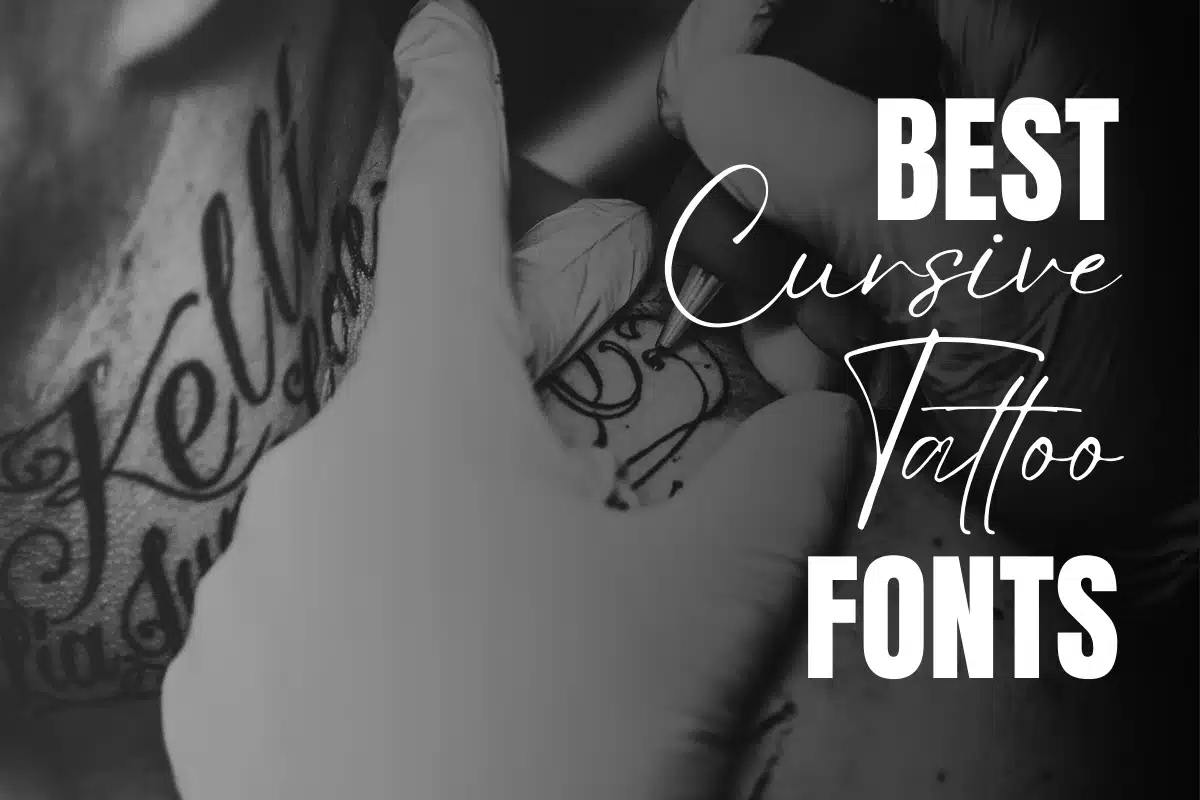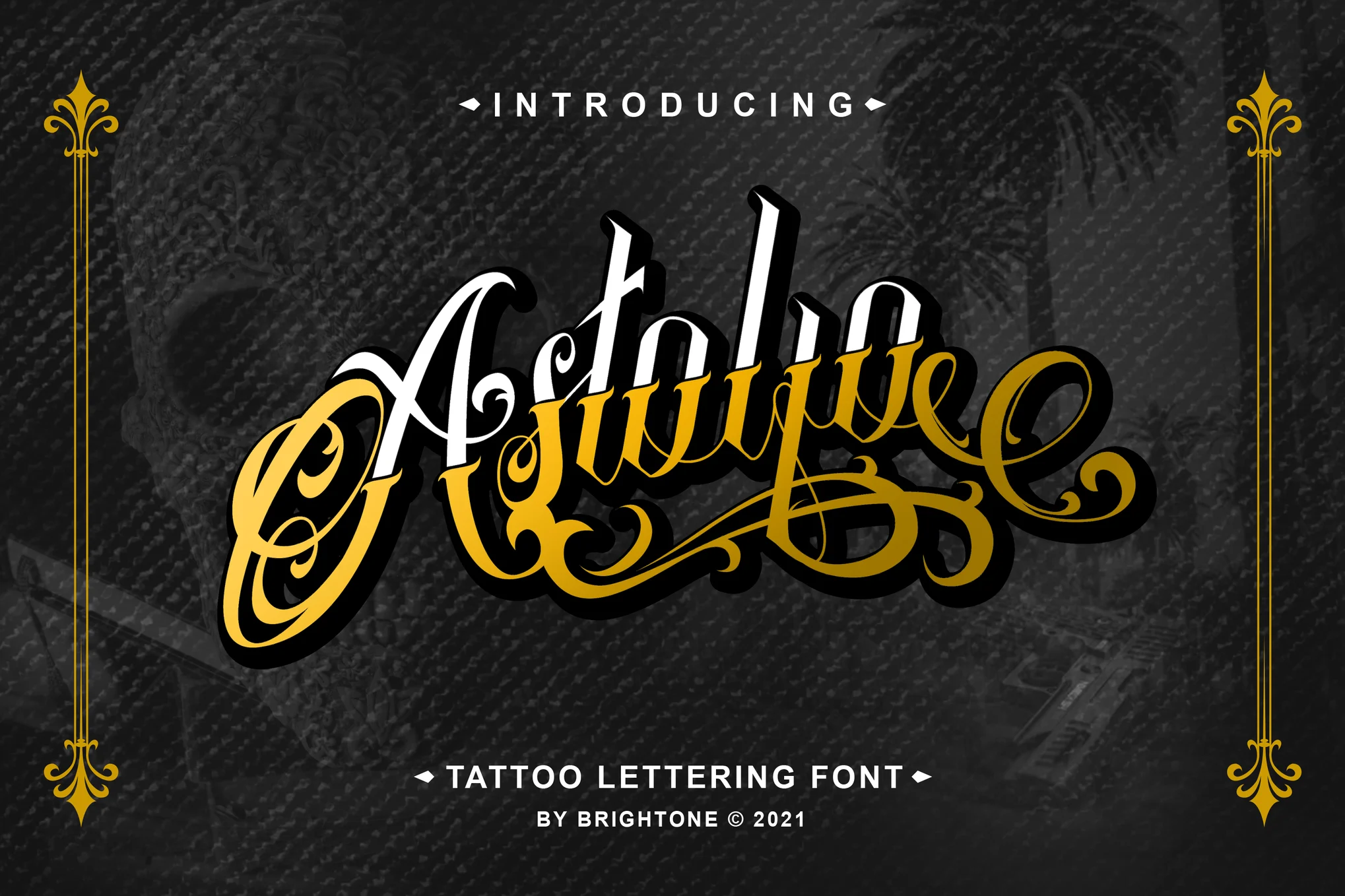
9 Best Cursive Tattoo Fonts for Your Next Ink Masterpiece
Cursive tattoo fonts have a unique charm that adds elegance and personalization to your body art. This “Best Cursive Tattoo Fonts” comprehensive guide will delve into the enchanting realm of the best cursive tattoo fonts, showcasing some of the most exquisite options available. Whether planning your first tattoo or looking to add to your collection, this guide will help you find the perfect cursive font for your ink masterpiece.
Why Choose The Best Cursive Tattoo Fonts?
Cursive tattoo fonts offer your tattoos a distinctive and artistic touch, making them stand out. Here are several compelling reasons why cursive fonts are an excellent choice for your next tattoo:
1. Timeless Elegance: Cursive fonts exude a timeless elegance that can complement a wide range of design ideas. Their flowing, handwritten style adds a touch of sophistication to your body art.
2. Personal Expression: Cursive tattoo fonts allow you to express your individuality and personality. Whether commemorating a particular date, representing a meaningful quote, or simply adding a stylish flourish, cursive fonts provide the perfect canvas for your emotions.
3. Versatile Design: These fonts are versatile, accommodating various tattoo sizes, styles, and placements. Cursive fonts can adapt to your vision, whether you prefer a delicate wrist tattoo or a bold chest piece.
4. Endless Options: The world of cursive tattoo fonts offers many options, from classic and elegant to modern and artistic. With so many choices available, you’ll be able to find a font that resonates with your taste easily.
Discover the Best Cursive Tattoo Fonts
9 Best Cursive Tattoo Fonts for Your Next Ink Masterpiece
1. Astolfo Tattoo Font: Top Choice for Cursive Tattoos
Discover Astolfo Tattoo Font, a professional script font perfect for cursive tattoos, logo design, shirts, and branding. With elegant uppercase letters, versatile numerals, and stylish alternate lowercase options, it adds a touch of tattoo artistry to your creative projects.
2. Familia Tattoo Lettering Font: Best for Cursive Tattoos
Familia Tattoo Lettering Font is your go-to choice for cursive tattoos, logo design, shirts, and branding. With elegant uppercase letters, versatile numerals, and stylish alternate lowercase options, it adds a touch of tattoo artistry to your creative projects.